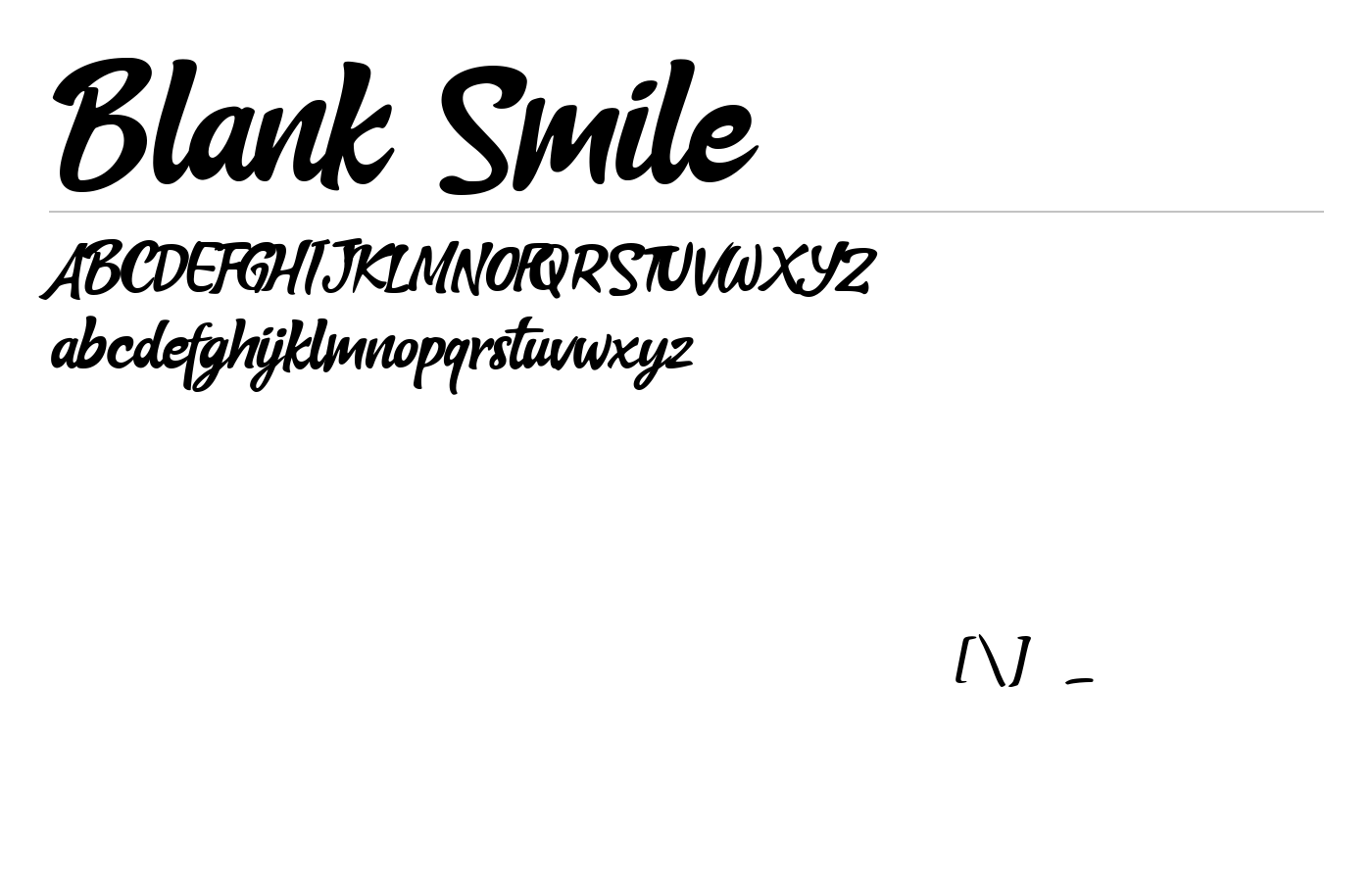
Blank Smile is a lively script font with a bold weight and fluid, natural strokes that create a casual yet confident feel. Its rounded, slightly condensed letterforms with smooth curves make it perfect for branding, logos, and playful headlines where a friendly and dynamic personality is desired. This font works well in creative and informal designs, adding a touch of charm and approachability.
Blank Smile Font
About Blank Smile Font